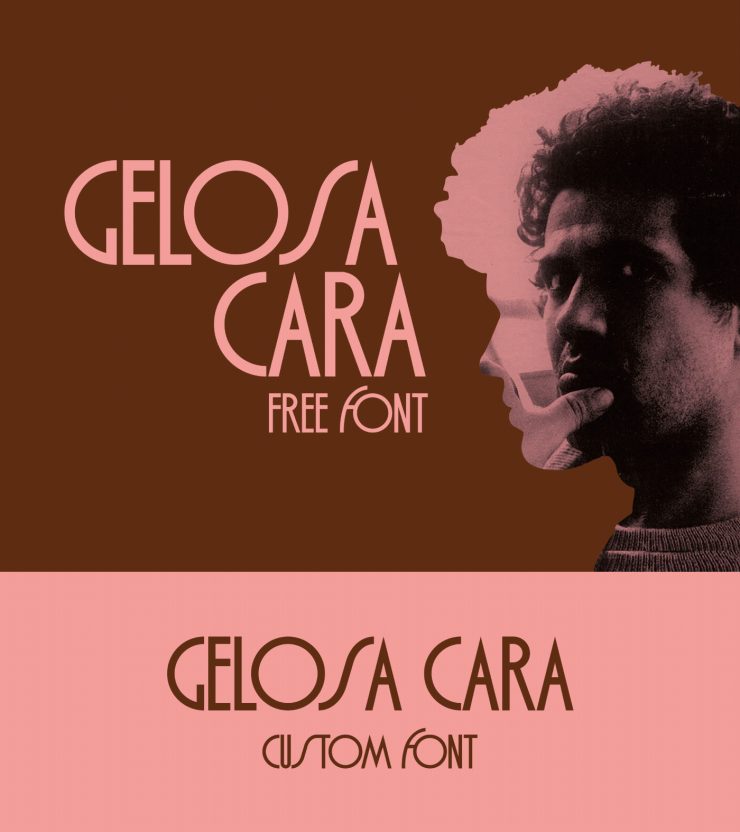
Gelosa Cara is a new free retro font created by Pietro Filippeschi. This typeface comes in two uppercase font styles: Regular and Regular Condensed. This typeface is inspired by the history of fonts and typography and influenced by the authenticity of the rationalist culture.